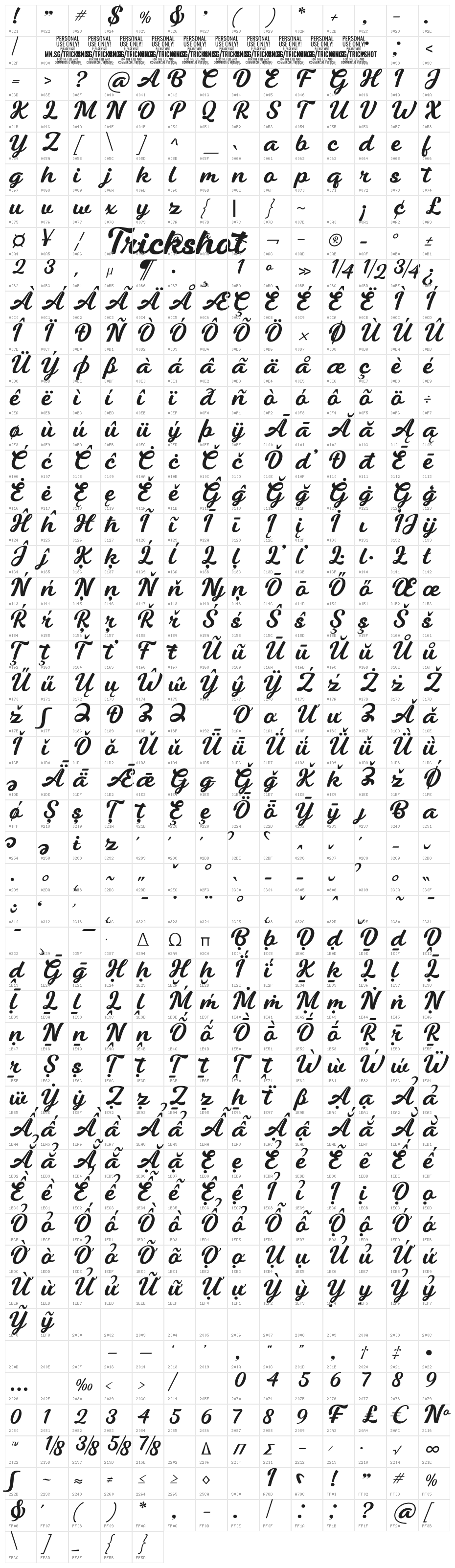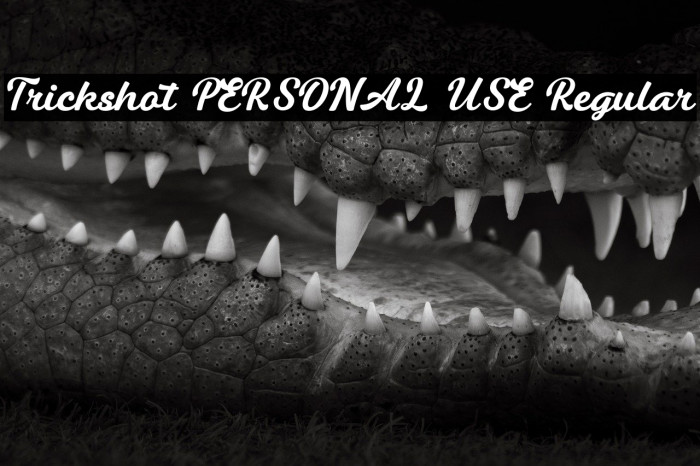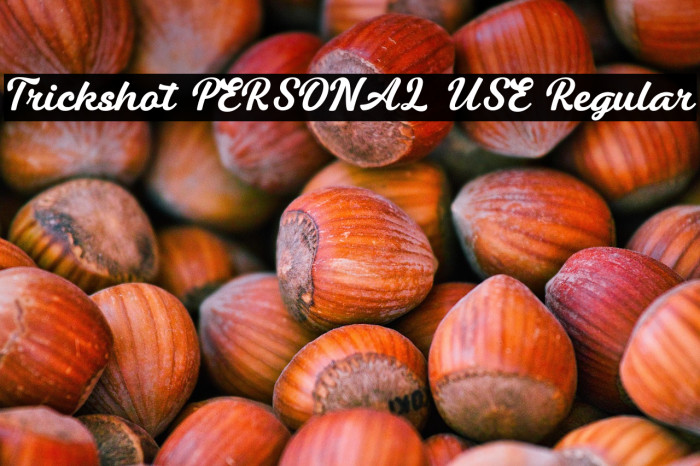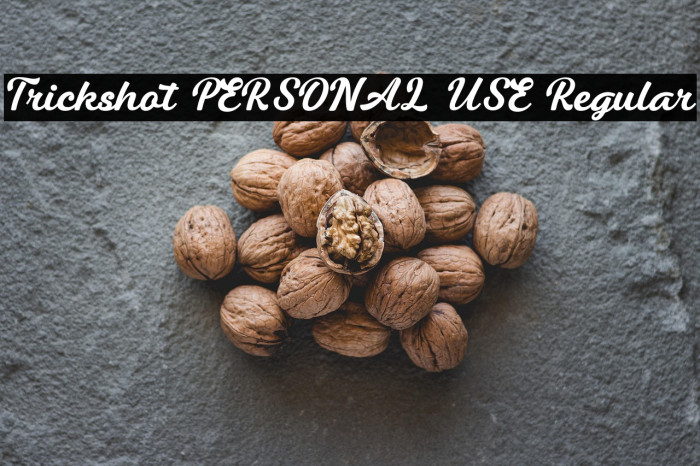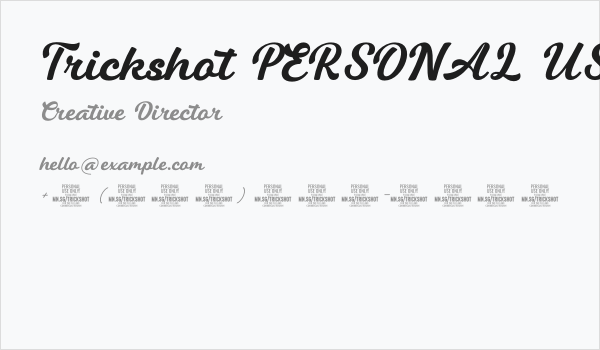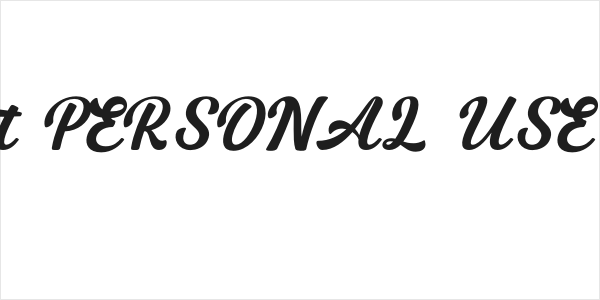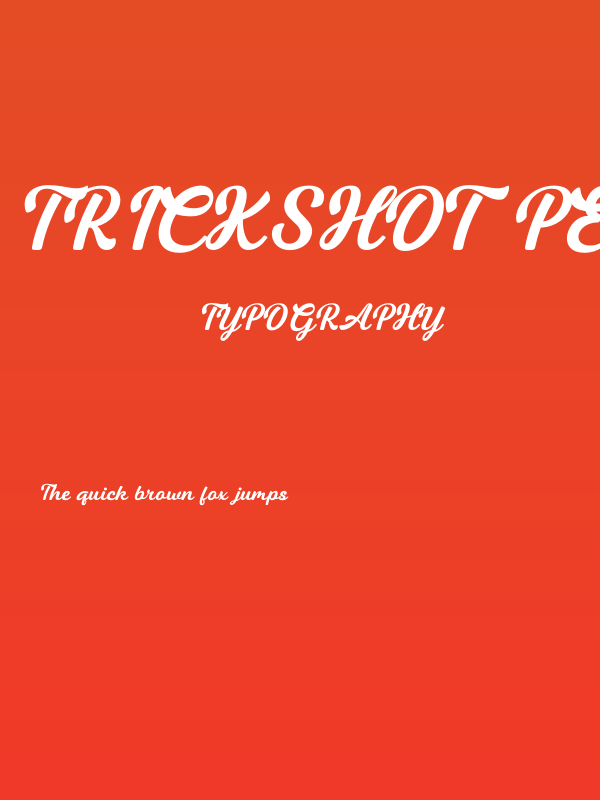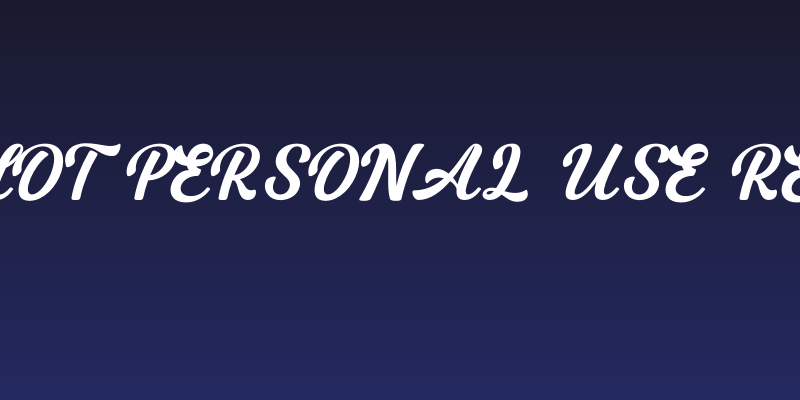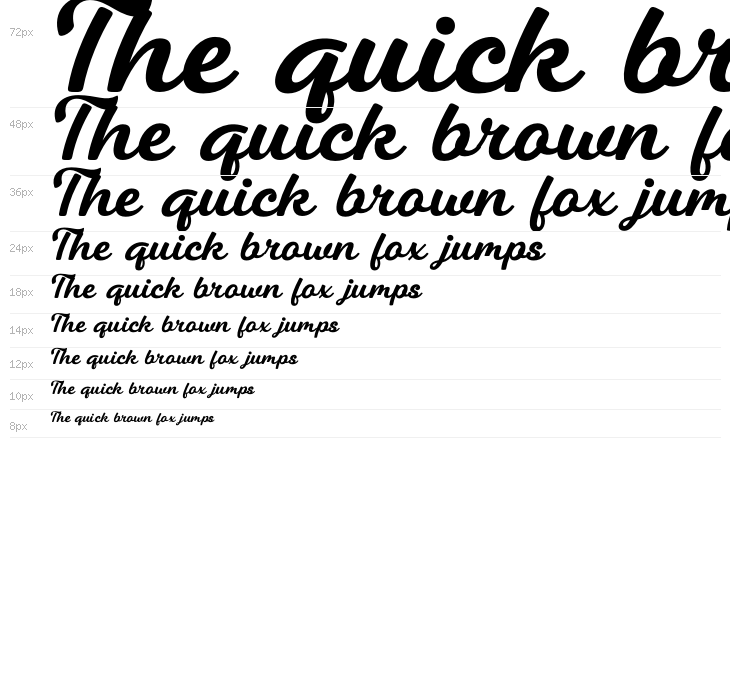
Trickshot PERSONAL USE Regular Font
Trickshot PERSONAL USE Regular Description
This font features a bold and flowing script style, characterized by its smooth, cursive letterforms that convey a sense of elegance and fluidity. The uppercase letters are slightly more ornate, with sweeping curves and loops, while the lowercase letters maintain a consistent flow, enhancing readability. The numbers and special characters are designed to match the overall aesthetic, providing a cohesive look. The font's thick strokes and rounded edges give it a friendly and approachable feel, making it suitable for a variety of design applications.